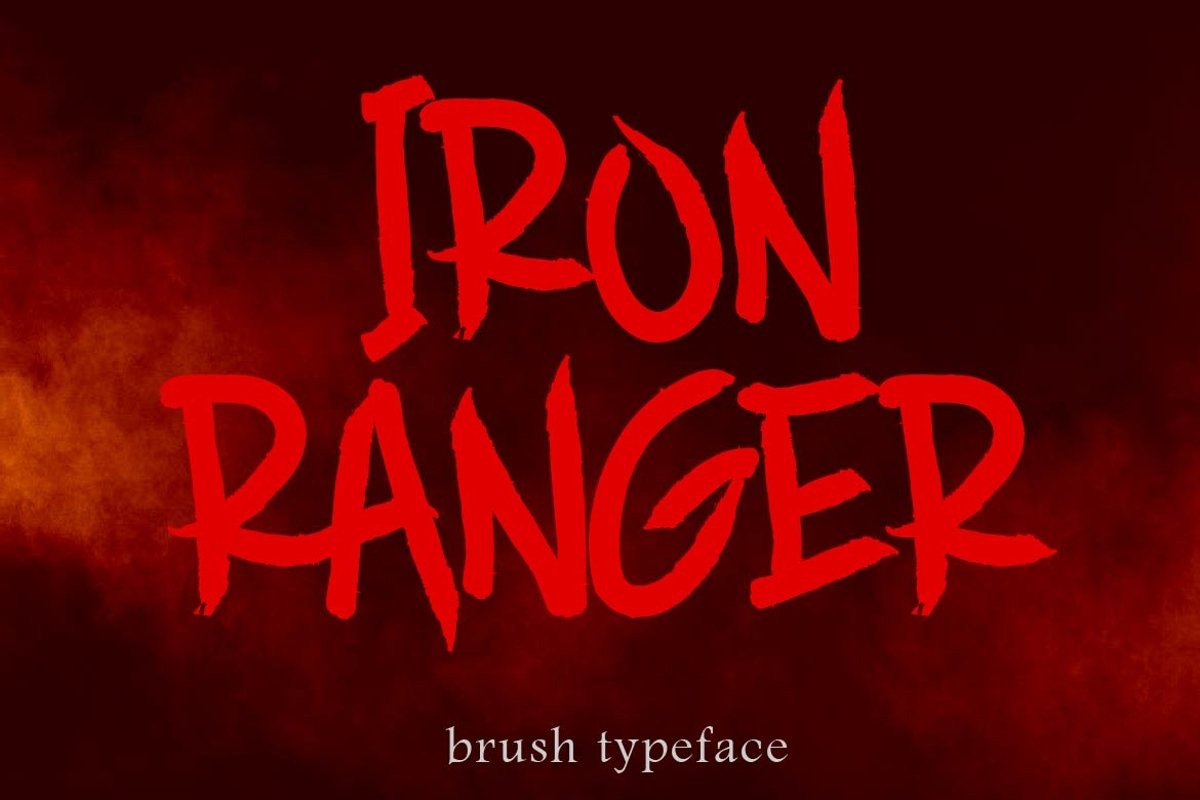
IRON RANGER
INTRODUCING
IRON RANGER is a supercharged font, with natural brush, quick strokes and sharp details.
IRON RANGER It contains ALL CAPS and also support multilingual. Perfect for challenging jobs, titles, logos, apparel, t-shirts, hoodies, quotes, product packaging, or anything that needs a typographic turbo-boost and a typographic unique style.